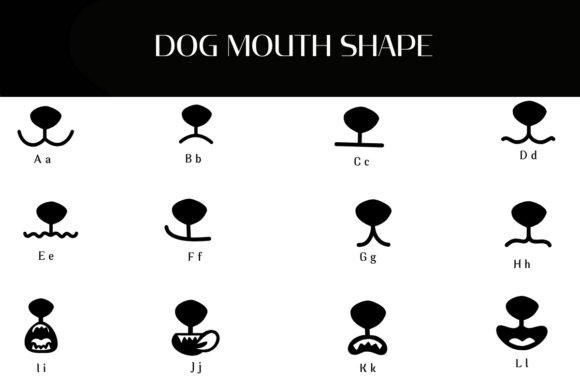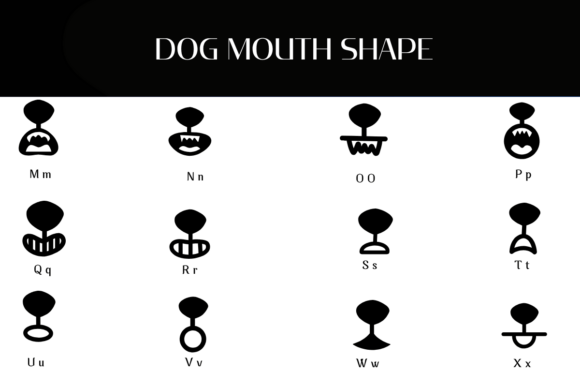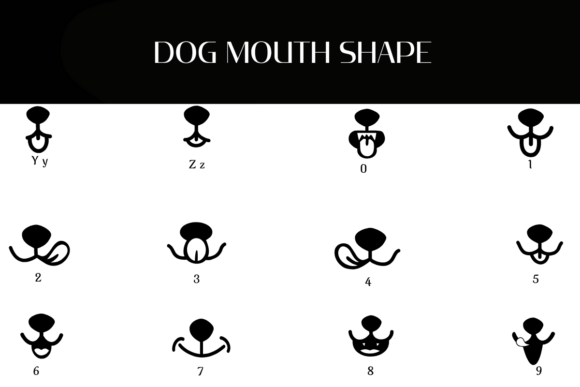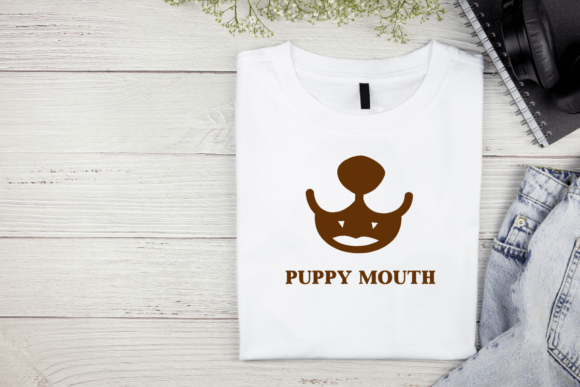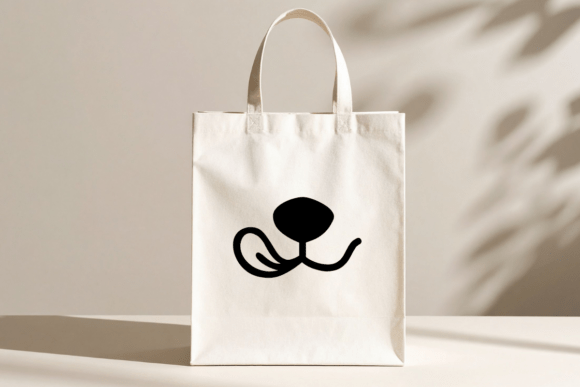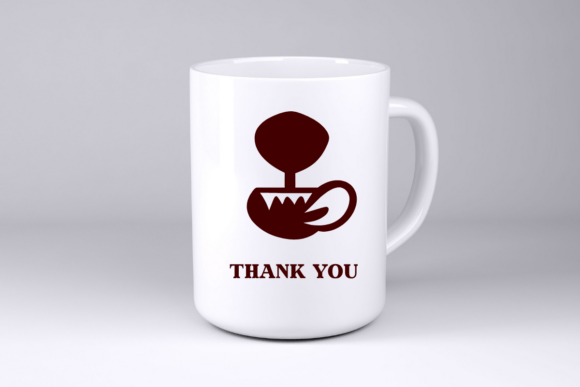
Introducing Dog Mouth Shape Font: A Fun and Versatile Dingbats Font
Are you a designer, crafter, or DIY enthusiast looking for a unique and playful font to add some personality to your projects? Look no further than the Dog Mouth Shape Font, a delightful dingbats font that’s perfect for a wide range of creative applications. In this article, we’ll explore the features and uses of this fun font, and show you how to make the most of it in your designs.
What is Dog Mouth Shape Font?
Dog Mouth Shape Font is a dingbats font, which means it’s a type of font that features symbols, shapes, and icons rather than traditional letters and numbers. This font is made up of adorable dog mouth shapes that can be used to add a touch of whimsy and fun to your designs. With its cute and playful aesthetic, Dog Mouth Shape Font is sure to delight audiences of all ages.
Uses for Dog Mouth Shape Font
So, what can you use Dog Mouth Shape Font for? The possibilities are endless! Here are just a few ideas to get you started:
- Note-taking and journaling: Add a playful touch to your notes and journals with Dog Mouth Shape Font. Use it to highlight important information, create headings, or simply add some visual interest to your pages.
- Greeting cards and invitations: Create one-of-a-kind greeting cards and invitations with Dog Mouth Shape Font. The font’s fun and playful design is sure to make your cards stand out.
- Banners and signs: Use Dog Mouth Shape Font to create eye-catching banners and signs for parties, events, or promotions.
- Social media posts: Add some personality to your social media posts with Dog Mouth Shape Font. Use it to create engaging graphics, quotes, or announcements.
- Mugs, shirts, and other merchandise: Dog Mouth Shape Font is a great choice for designing custom merchandise, such as mugs, shirts, and tote bags.
- Stationery and paper crafts: Use Dog Mouth Shape Font to create custom stationery, stickers, and other paper crafts.
Tips for Using Dog Mouth Shape Font
Here are a few tips for getting the most out of Dog Mouth Shape Font:
- Experiment with different sizes and colors: Don’t be afraid to try out different sizes and colors with Dog Mouth Shape Font. The font looks great in a variety of sizes, from small and delicate to large and bold.
- Mix and match with other fonts: Combine Dog Mouth Shape Font with other fonts to create interesting and dynamic designs.
- Use it to add visual interest: Use Dog Mouth Shape Font to add visual interest to your designs, such as in headings, subheadings, or bullet points.
Why Choose Dog Mouth Shape Font?
So, why should you choose Dog Mouth Shape Font for your next project? Here are just a few reasons:
- Unique and playful design: Dog Mouth Shape Font features a unique and playful design that’s sure to stand out.
- Versatile: This font is versatile and can be used for a wide range of applications, from note-taking to merchandise design.
In conclusion, Dog Mouth Shape Font is a fun and versatile dingbats font that’s perfect for designers, crafters, and DIY enthusiasts. With its unique and playful design, this font is sure to add a touch of personality to your projects. Whether you’re creating greeting cards, banners, or social media posts, Dog Mouth Shape Font is a great choice. So why not give it a try and see what creative possibilities you can come up with?